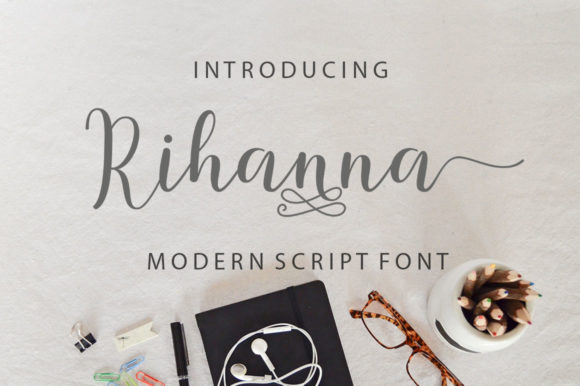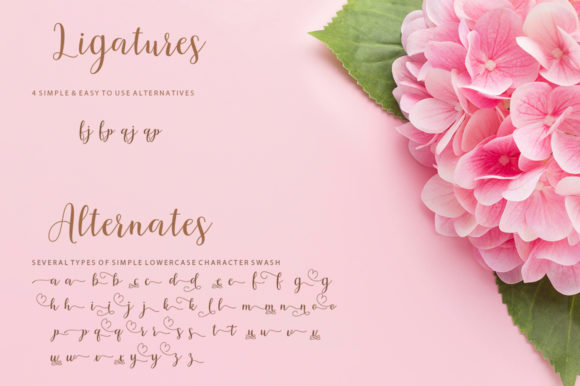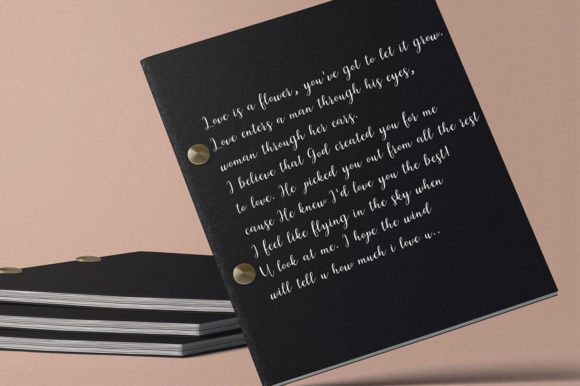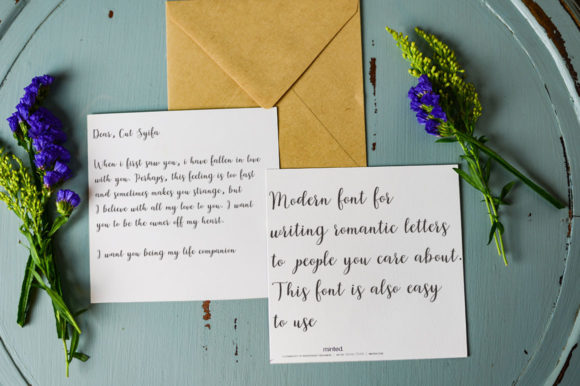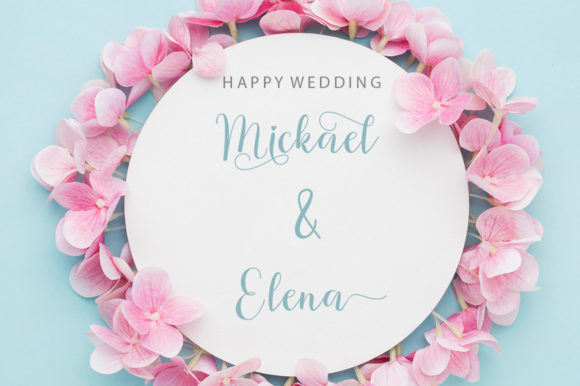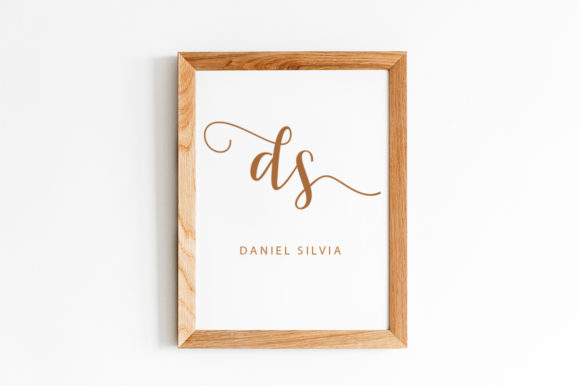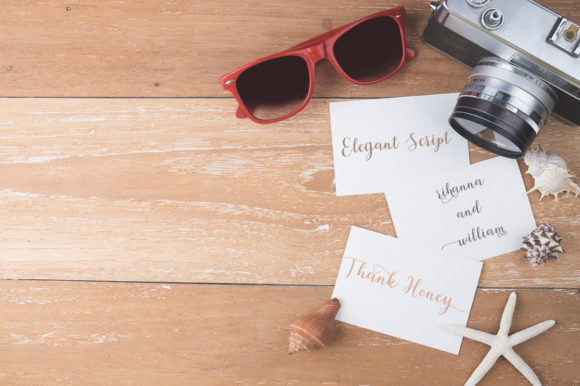
Rihanna Font
About Rihanna Font
Introducing Rihanna, a charming and elegant handwritten font that exudes beauty and sophistication. This font is a true gem, designed to add a touch of allure and grace to any project. Whether you’re working on wedding invitations, thank you cards, quotes, greeting cards, logos, business cards, or any other creation that craves a handwritten touch, Rihanna will make your designs shine with its stunning appearance.
Rihanna’s charming and elegant style creates an air of refinement and grace. Each letter dances gracefully, as if penned with the finesse of a skilled calligrapher. Whether you’re designing wedding invitations for an unforgettable celebration or crafting heartfelt thank you cards, Rihanna brings a touch of sophistication that mesmerizes and captivates.
The font’s versatility knows no bounds. As you incorporate Rihanna into your designs, you’ll discover how effortlessly it complements a wide variety of projects. From branding and logo design to social media graphics, blog headers, and digital artwork, Rihanna’s charm enhances your creations with its exquisite allure.
With Rihanna’s PUA encoding, you gain easy access to a treasure trove of glyphs and swashes. This feature empowers you to add personalized embellishments and decorative elements to your designs with ease, making each project a unique and artful masterpiece.
Imagine using Rihanna to create captivating typography art. Its elegant and handwritten style becomes a centerpiece, adding a touch of romance and allure to your designs. Let your creativity flow and watch as your artwork comes alive with beauty and grace.
For quotes that resonate with authenticity and elegance, Rihanna brings an aura of timeless wisdom. Whether shared on social media or showcased on beautifully printed wall art, your messages will captivate with a touch of charm.
Greeting cards and stationery become works of art with Rihanna. Be it birthdays, holidays, or moments of celebration, the font’s charming and elegant script makes your greetings truly stand out, leaving recipients in awe of your thoughtful designs.
In conclusion, Rihanna is more than just a font; it’s an embodiment of charm and sophistication. With its flowing handwritten style, PUA encoding, and stunning alternates, Rihanna becomes an essential tool for all your design projects. Embrace the allure and elegance of Rihanna and watch as your creations come alive with grace and charm. Let your imagination soar in the charming and elegant embrace of Rihanna, the handwritten font that defines beauty and allure.